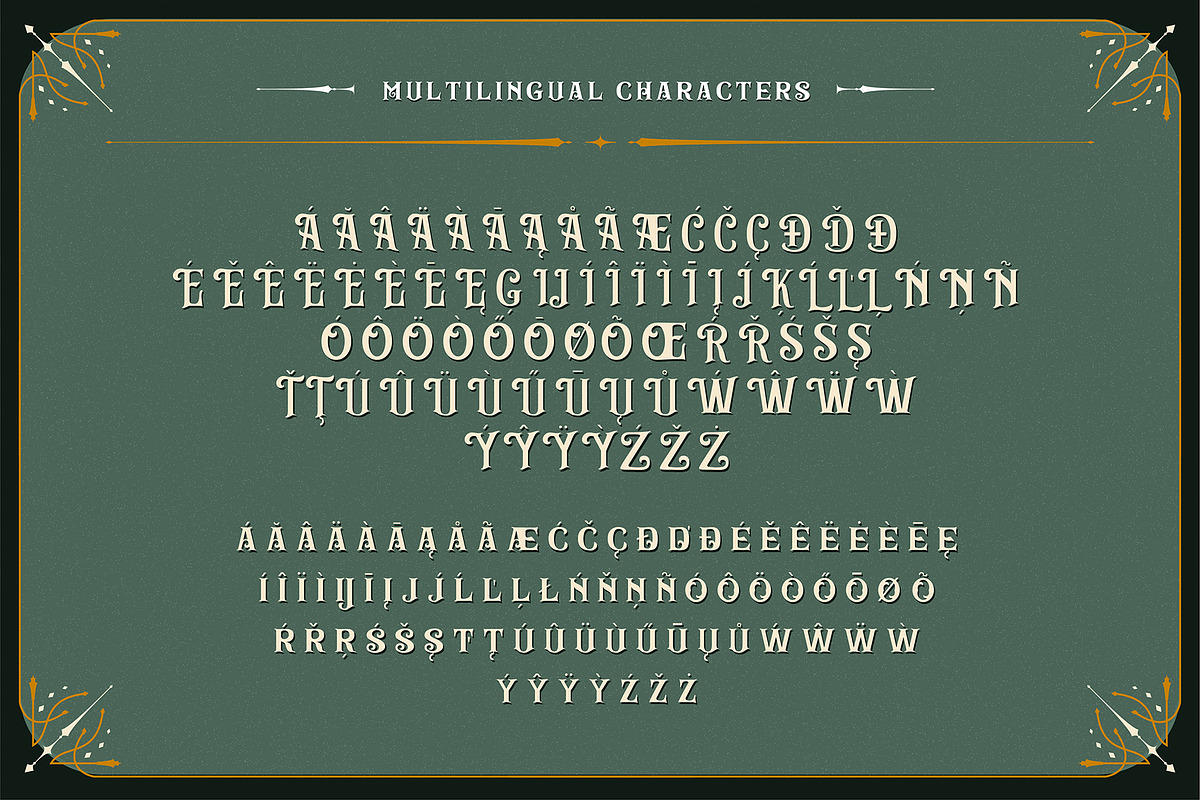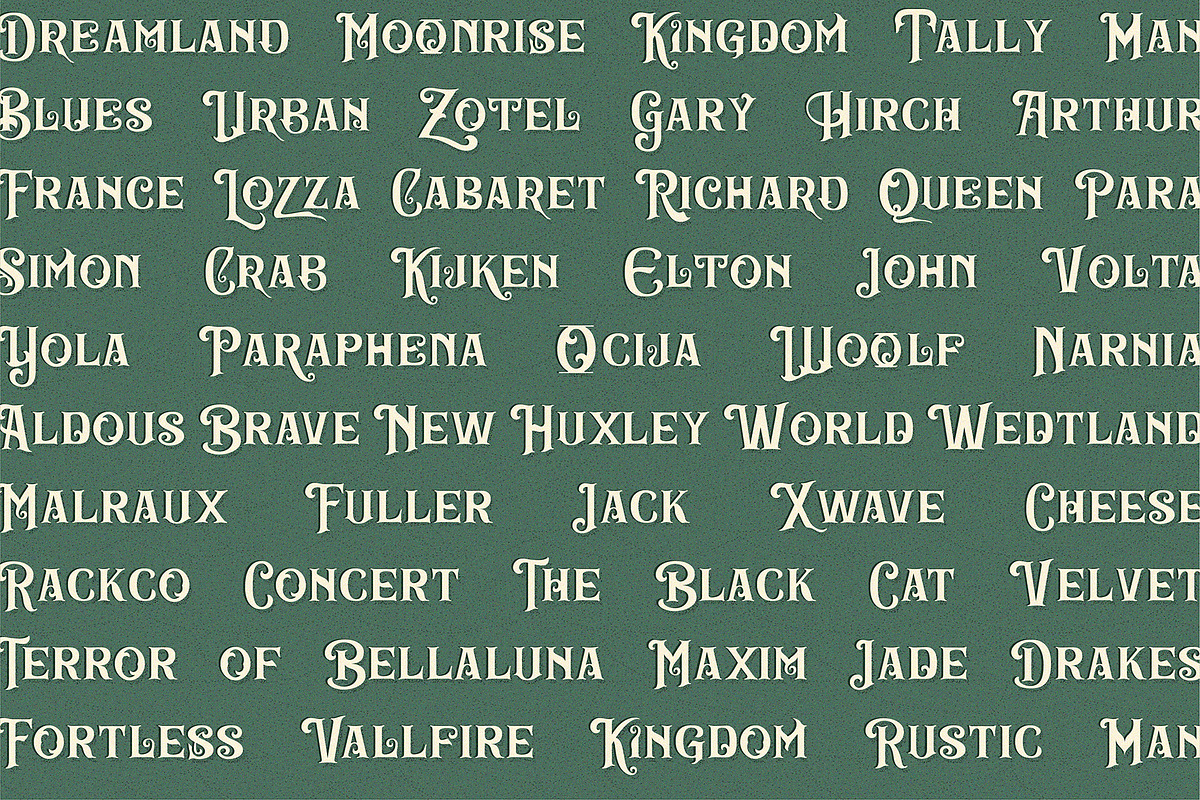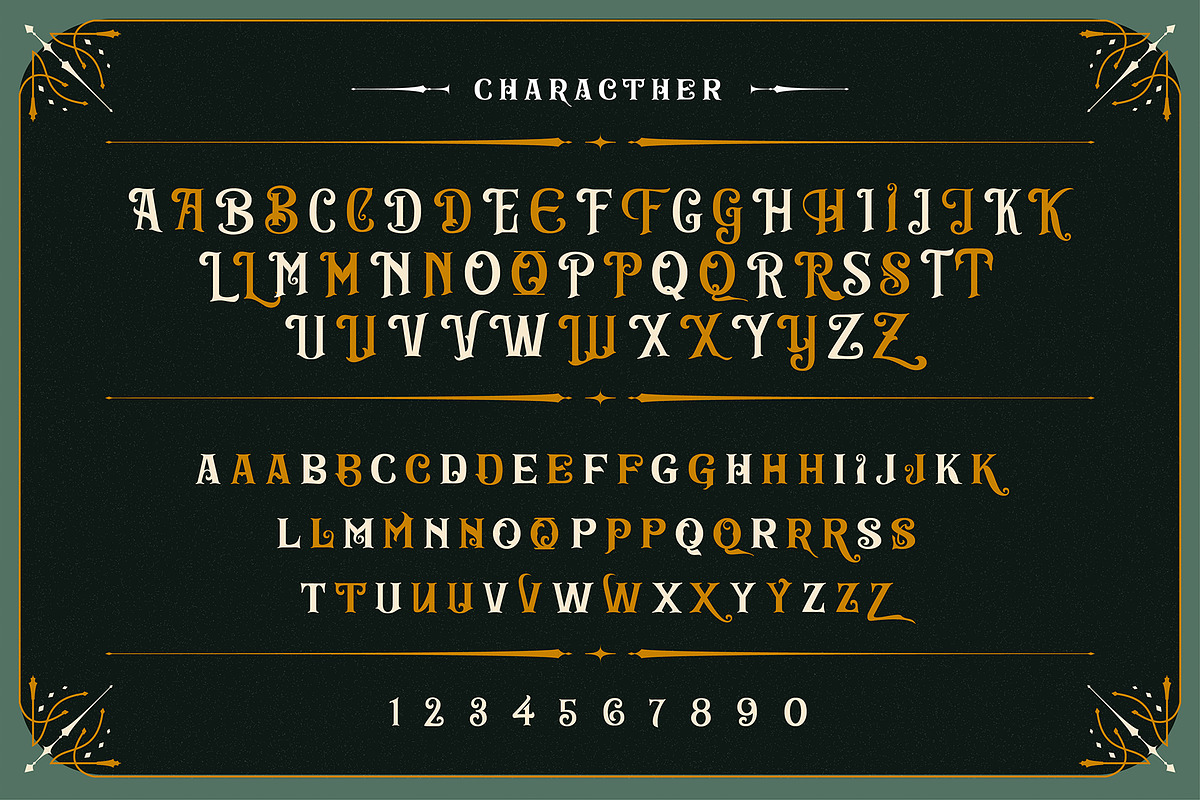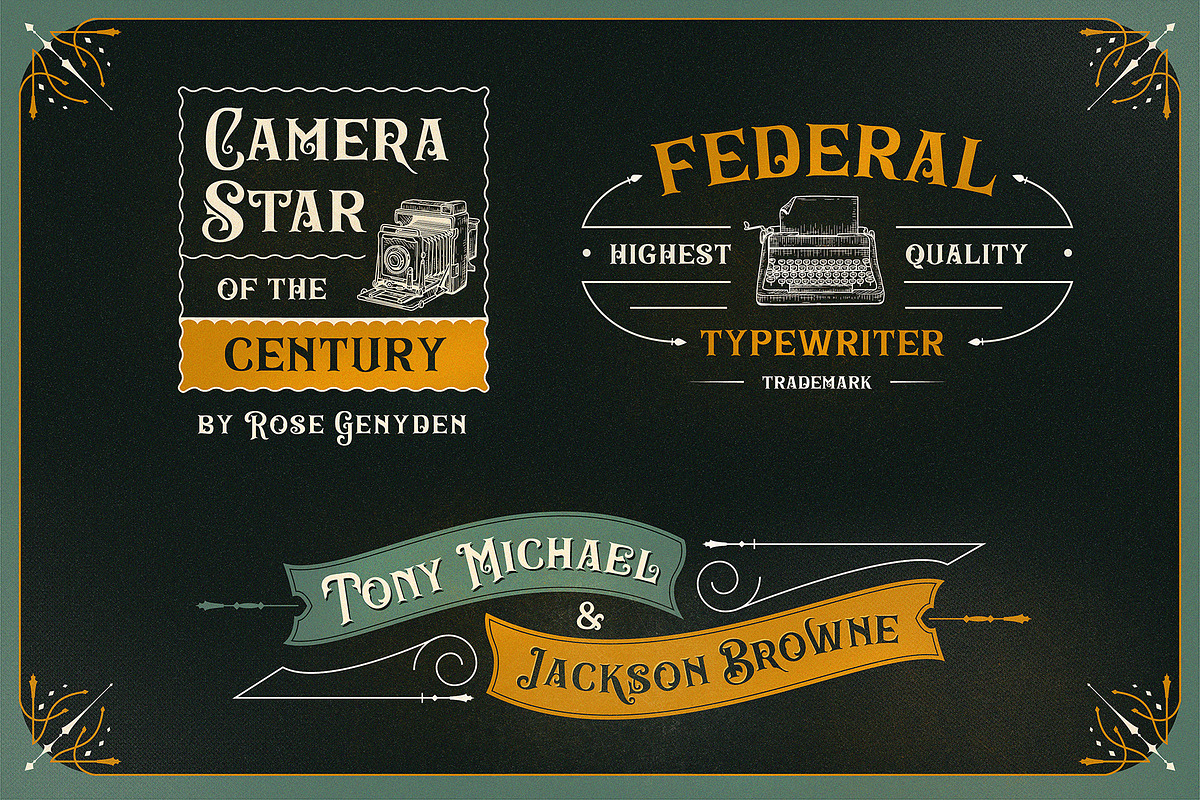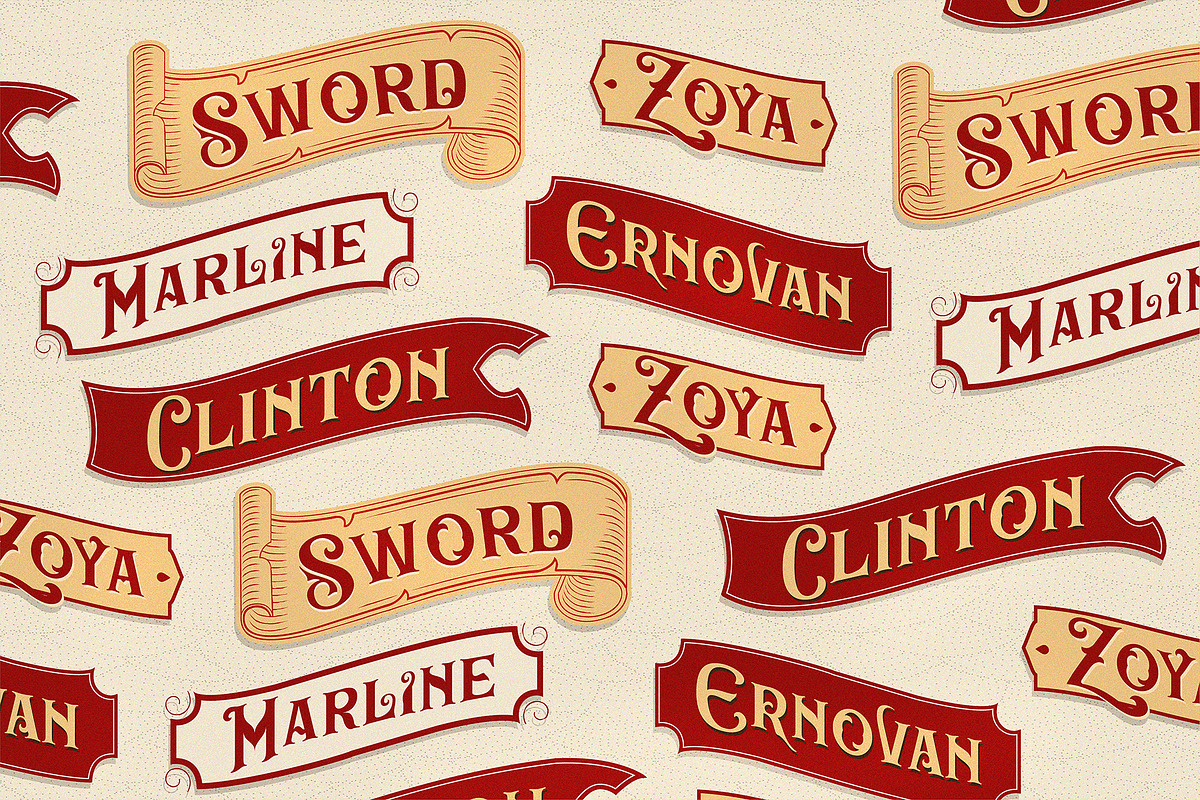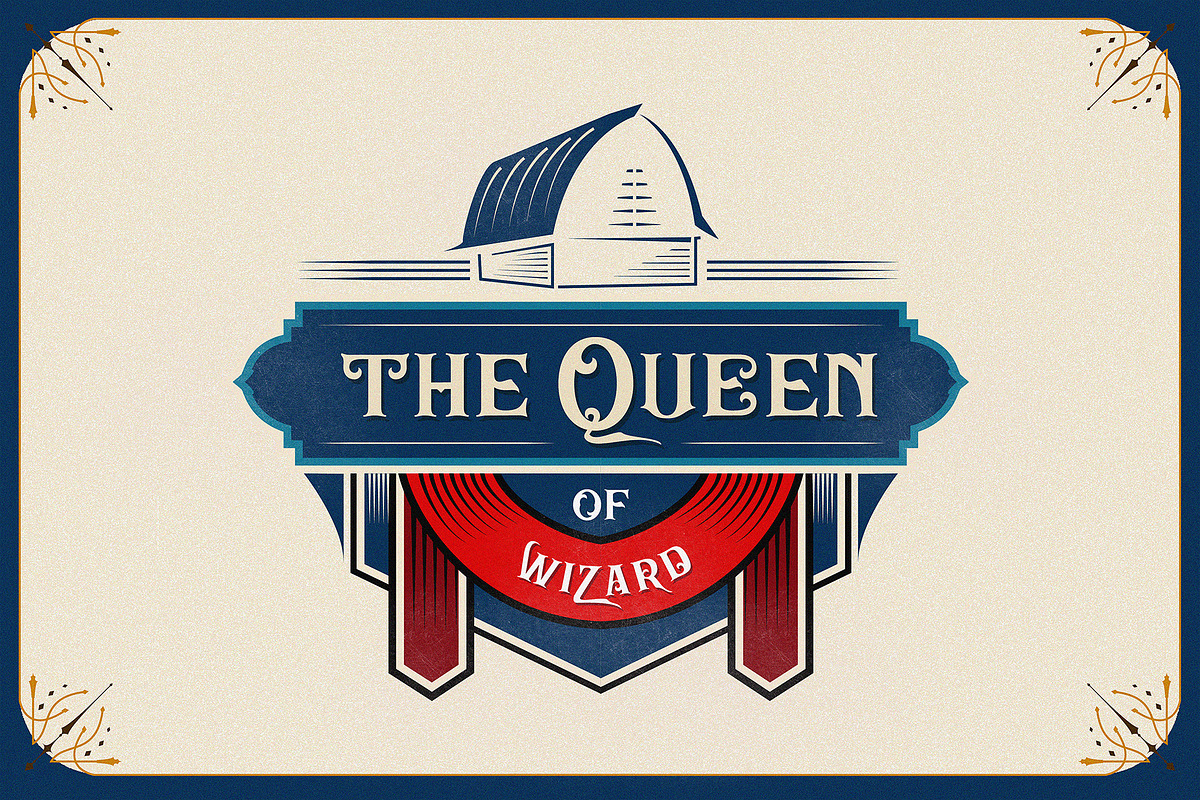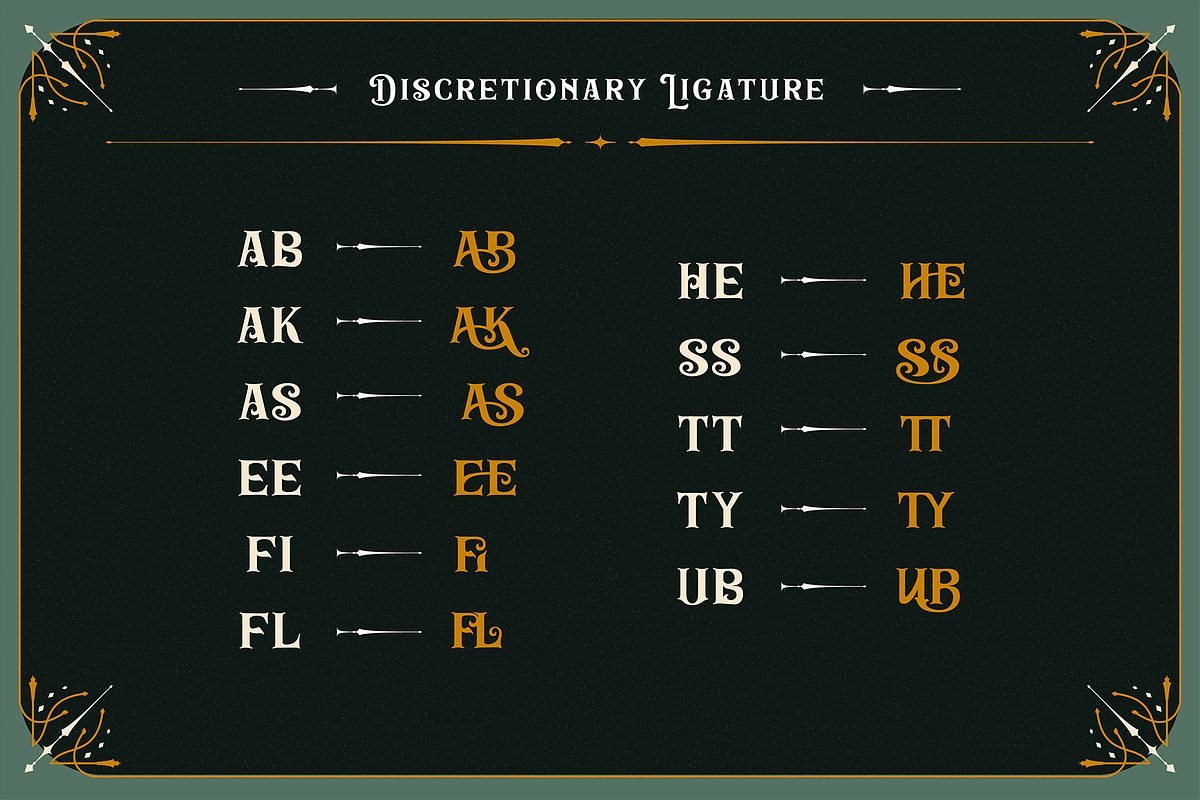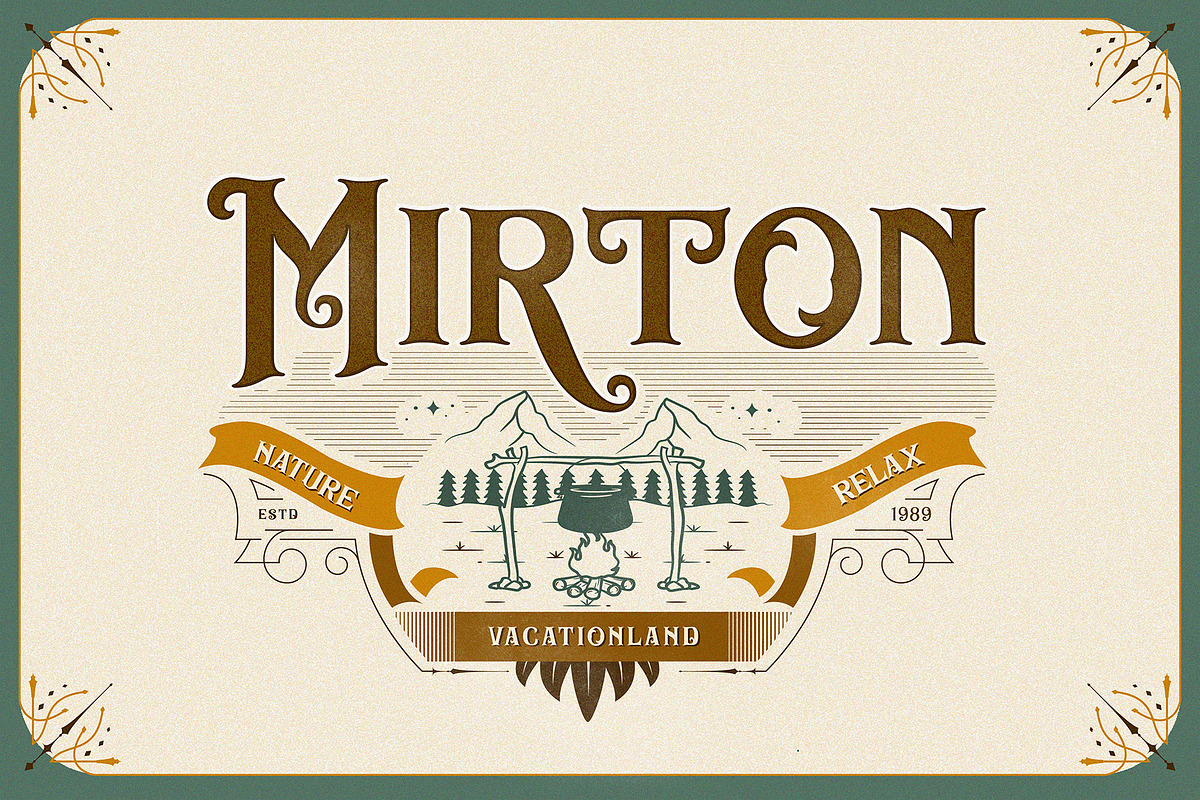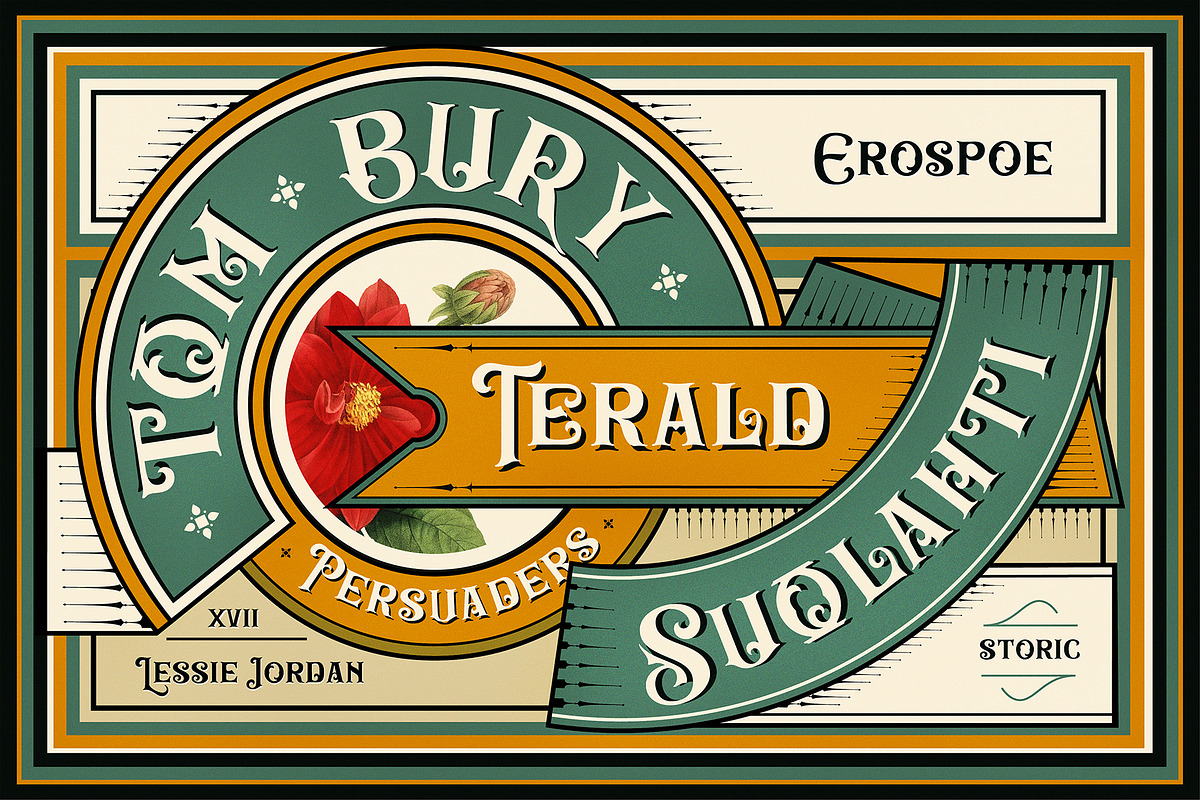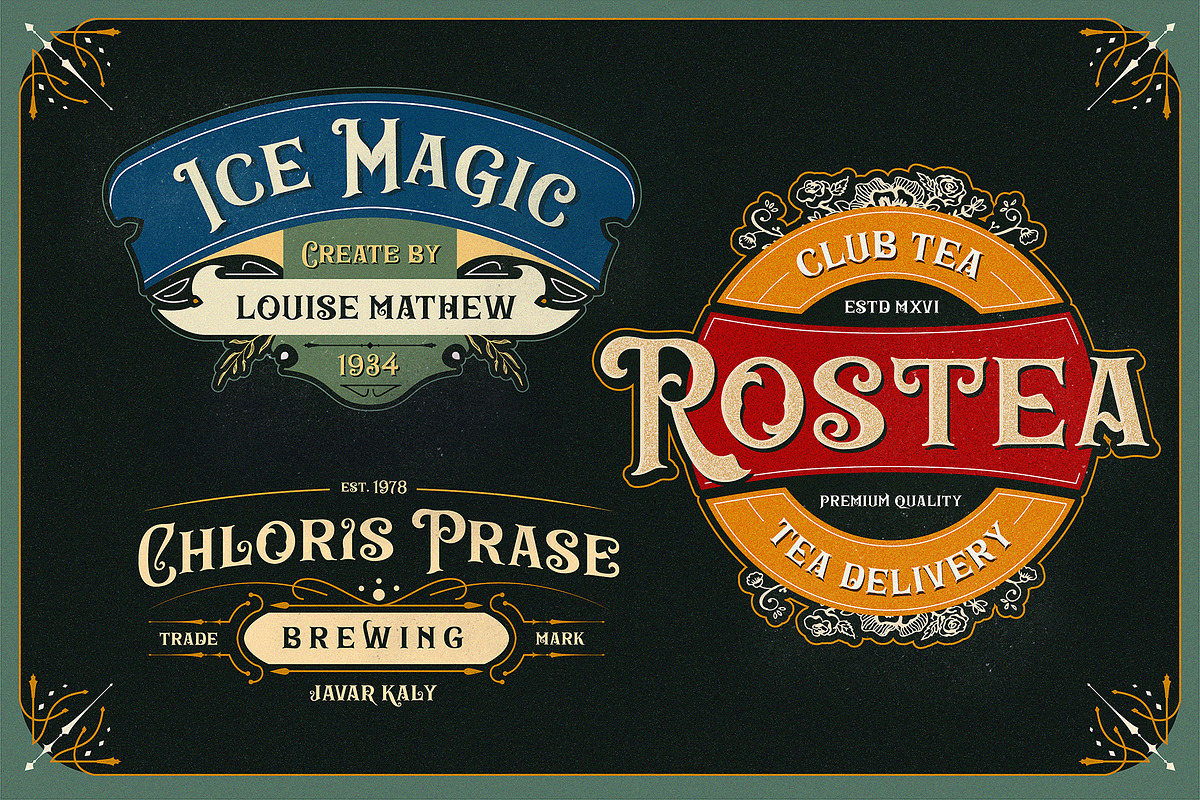
Burnic | Victorian Display Font
Introducing vintage classic display typeface its called Burnic Typeface. Burnic Typeface is inspired by antique, mix victorian and art deco period with decorative shapes.
Even though this font has a classic style, this font can be used in modern products and can add an elegant impression to your product design. Elevate your brand with this exquisite font, perfect for adding a personal touch or creating an exclusive vibe to your special items. From posters to logos, prints to quotes, headers to clothing, labels to packaging - the possibilities are endless!
- Character Set A-Z
- Stylistic Alternate